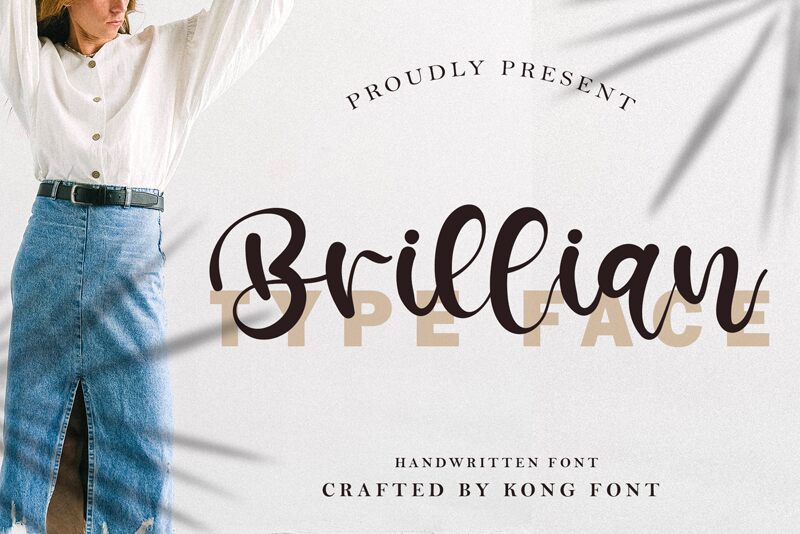
Brillian font family by Kong Font contains four free script font styles for personal use. It’s inviting, contemporary, and effortlessly elegant. The script strokes have a smooth flow which reminds of handwriting but with exemplary detail. Built for a balanced experience, Brillian is expressive without being excessive, thus suitable for both modern and classic projects. The organic feel of this font adds a friendly touch to your text and its artistic vibe makes for an engaging reading experience.
Brillian has a casual charm that can benefit many concepts including book and magazine covers, invitation cards, branding, packaging, and advertisements. Be it signage, album art, album covers, business cards, or website design, you can confidently apply Brillian without compromising on an elite visual identity.